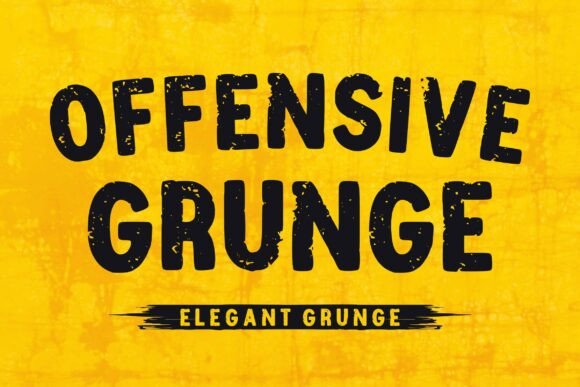
Unleashing Raw Energy: The Power of the Offensive Grunge Typeface
In the world of graphic design, typography is often the silent narrator of a brand's story. While clean lines and geometric perfection have dominated the digital landscape for decades, there is a growing hunger for authenticity, grit, and texture. This is where Offensive Grunge steps in as a bold statement maker. It is not merely a font; it is a visual representation of urban rebellion, capturing the raw energy that defines underground culture. For designers looking to break through the noise of polished, corporate aesthetics, this powerhouse display typeface offers an immediate connection to the streets, the stage, and the extreme.
The Aesthetic of Urban Rebellion
The defining characteristic of Offensive Grunge lies in its ability to mimic the wear and tear of the real world. Unlike standard distressed fonts that often feel artificial or over-applied, this typeface features heavy, distressed letterforms with a weathered texture that feels organic. Imagine a stencil spray-painted on a concrete wall after years of rain and sun exposure, or a metal sign rusting in an abandoned industrial district. That is the vibe this font captures perfectly.
This "elegant grunge" quality is what sets it apart from generic scratchy scripts. The strokes are thick and imposing, yet they contain intricate details within their imperfections. When viewed up close, you can see the variations in ink density and the subtle erosion of edges. These details transform the letters from simple shapes into textured objects with history. In a design portfolio filled with sleek vectors, Offensive Grunge acts as a disruptor, demanding attention and refusing to be ignored.
Why Distressed Typography Matters Now
We are currently seeing a shift in design trends away from sterile minimalism toward maximalism and tactile realism. Audiences today are savvy; they can spot a perfectly rendered logo from a mile away, but they crave something that feels human-made. The grunge aesthetic taps into a psychological desire for the authentic and the unpolished. It suggests a brand that is grounded, resilient, and perhaps a little dangerous.
When you choose Offensive Grunge, you are signaling that your project is not afraid to get dirty. It aligns your message with values of resilience, non-conformity, and high-octane energy. Whether you are designing for a niche community or a mass-market product, the font provides an instant layer of depth that flat colors cannot achieve.
Ideal Applications: Where the Font Shines
While versatility is key in any typeface, Offensive Grunge is specifically engineered for high-impact headlines and rebellious branding. Its heavy weight and complex textures mean it loses clarity at small sizes, making it less suitable for body text. Instead, it thrives in scenarios where size and impact are paramount.
- Street-Wear Apparel: Fashion brands focusing on urban style rely heavily on typography to convey attitude. Placing Offensive Grunge across the chest of a hoodie or on the back of a denim jacket instantly communicates a counter-culture identity. The texture mimics the fabric's roughness, creating a cohesive look between the garment and the print.
- Rock Music Posters: From heavy metal to indie punk, music genres thrive on visual aggression. Concert posters featuring this font set the tone before a single note is played. The weathered look suggests a live, sweaty, chaotic atmosphere that fans associate with great gigs.
- Extreme Sports Graphics: Skateboarding, motocross, and BMX cultures are built on the concept of pushing limits and enduring crashes. The rugged nature of the font mirrors the physical toll of these sports. It works exceptionally well on action shots, equipment branding, and event banners.
Creating Visual Hierarchy with Texture
One of the most effective ways to use this typeface is to leverage its texture to create hierarchy without relying solely on color. In a layout with multiple elements, the heavy, distressed strokes of Offensive Grunge naturally draw the eye first. You can pair it with cleaner, thinner elements to guide the viewer's journey through the design. For instance, a headline in this font can anchor a poster, while smaller, crisp details provide the necessary information like dates and locations.
Consider the context of an event flyer. If you use a clean sans-serif for everything, the flyer might blend in with hundreds of others. However, using Offensive Grunge for the main title creates an immediate focal point. The "grit" of the letters contrasts sharply with the smooth background, ensuring the message pops against even the busiest urban backgrounds.
Mastering the Pairing: Beauty and the Beast
A common mistake when working with aggressive typefaces is pairing them with other decorative or heavy fonts. This can lead to visual clutter and a lack of readability. The secret to mastering Offensive Grunge lies in contrast. To let the font shine, you need to pair it with a clean, sharp sans-serif.
This approach creates a dynamic tension often described as "beauty and the beast." The refined, geometric lines of a modern sans-serif (like Helvetica, Roboto, or Montserrat) provide a neutral canvas that allows the chaotic energy of the grunge font to take center stage. The clean font handles the informational load—dates, times, URLs, and fine print—while the grunge font delivers the emotional punch.
Ultimately, the best typography serves the message. Offensive Grunge serves messages that need to roar rather than whisper. By understanding its strengths, pairing it correctly, and applying it with intention, you can unlock a level of visual impact that transforms good designs into unforgettable experiences.